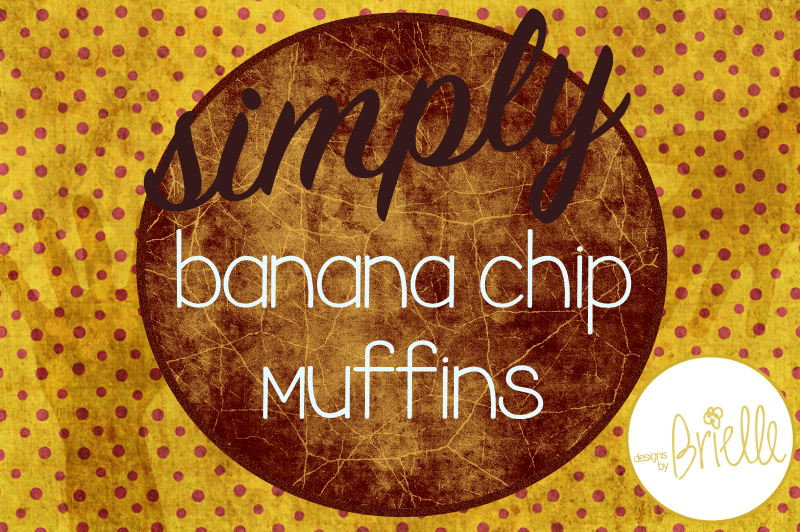
Preview and download Banana Chip Muffins Font. Created by Designs by Brielle in Script Various styles with Free for personal use license.
A fun, simple but sweet font, perfect for labels, logos and the like! Free for personal use. For commercial licensing, please see http://designsbybrielle.com/commercial-use-info/. |